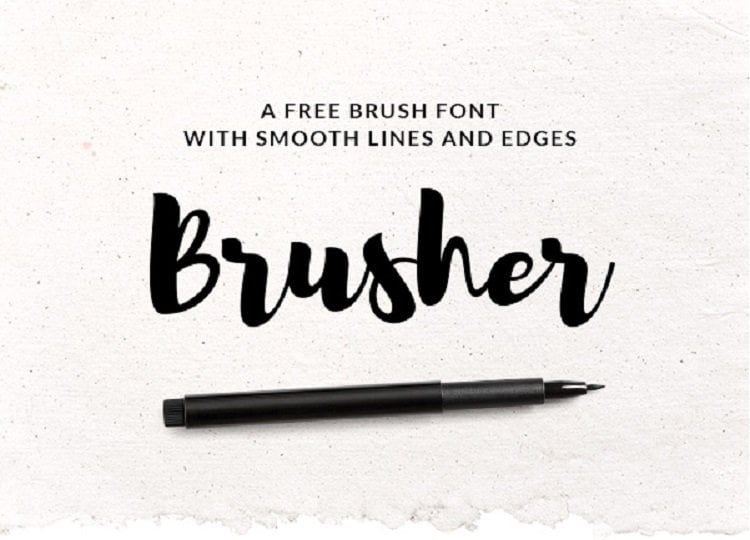
Brusher Font
Today’s special resource is a bold and modern brush font that would fit perfectly in your future design projects. Brusher includes 100 glyphs crafted with precise strokes and smooth lines that will give your text a naturally hand drawn look.